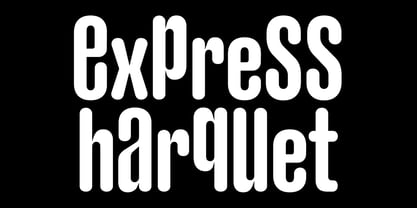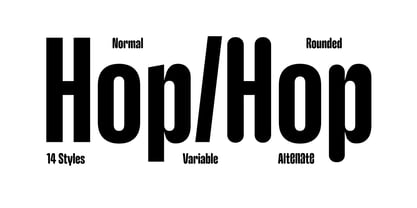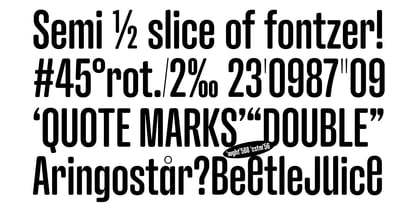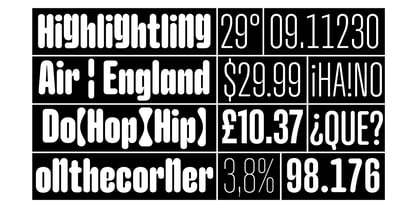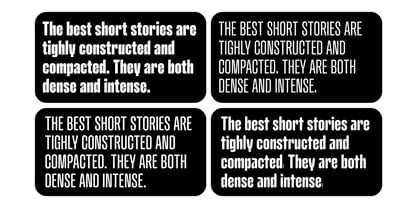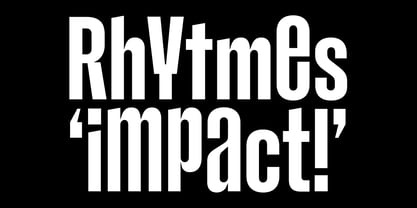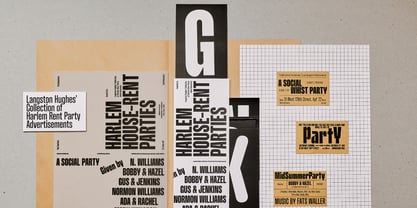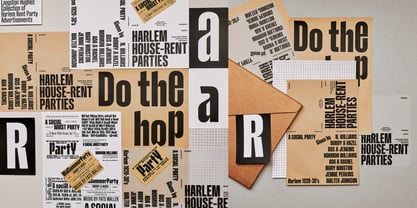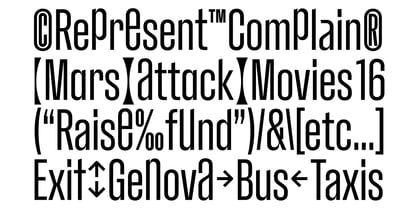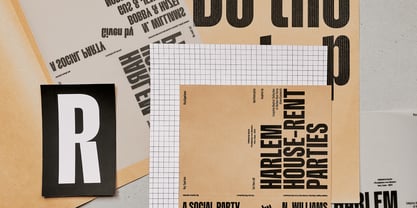
Hop Compressed
La familia tipográfica Hop Compressed fue diseñada por Adrien Midzic y publicada por Pizzatypefaces. Hop Compressed contiene 15 estilos y opciones de paquete familiar. Más información sobre esta familia
The Hop Compressed typeface is a compact, "Impact"-inspired font that combines strength and style. Its standout features include a unique calligraphic approach in the connection between stems and bowls, offering a diverse range of weights. This typeface also includes a rounded companion across all styles, culminating in a playful stylistic set that elevates lowercase letters alongside uppercase ones. Hop Compressed consists of two families: Hop Compressed Normal, known for its strong and straight letterforms, and Hop Rounded, which evokes smooth and soft sensations. Additionally, Hop Compressed is a variable font with two axes (Weight 'wght' / Custom 'cstm'), allowing you to select weights ranging from 100 (Thin) to 900 (Ultra) and adjust the corner radius from 0 (none) to 100 (fully rounded). The choice between rounded or sharp forms adds versatility to your design projects, making it suitable for branding, editorial, and web applications. As a famous Englishman might have said, "Rounded or not to be?"